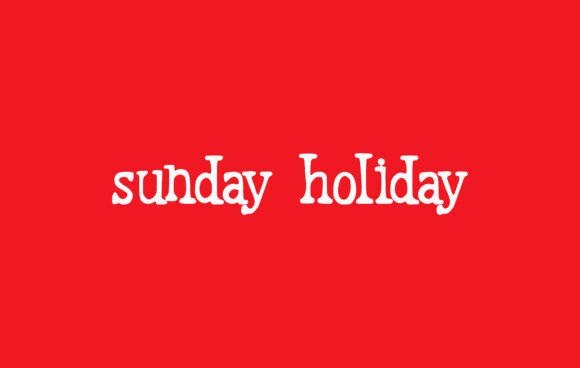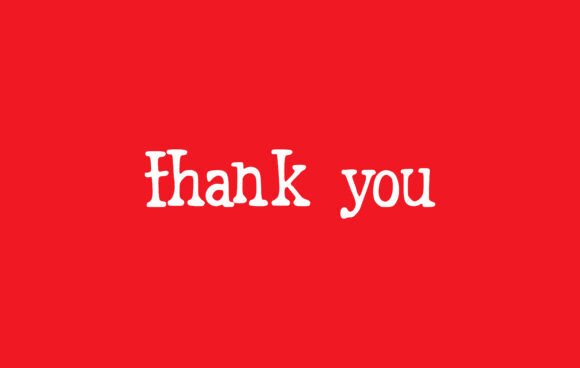
Introduction to Graffflow Font
Have you ever stumbled upon the perfect font that makes your creative project stand out from the crowd? It’s that magical moment when words come alive on the page, and your design takes on a life of its own. For designers, finding the right font can be a game-changer, elevating their work from good to great.
Enter the Graffflow Font, an authentic handwritten font with a romantic touch that’s sure to capture hearts. This expertly designed font is a true favorite among creatives, offering a high-quality solution for any design project. Whether you’re working on a magazine headline, social media campaign, or wedding invitation, Graffflow Font is the perfect design resource to take your ideas to the next level.
Key Features of Graffflow Font
- Unique Hand-Drawn Design: Graffflow Font features a distinctive hand-drawn style, perfect for creative projects that require a personal touch.
- Perfect for Creative Projects: Graffflow Font is ideal for use in creative projects such as posters, flyers, business cards, and other marketing materials.
- Design Resource: Graffflow Font is a valuable addition to any designer’s toolkit, providing a versatile and stylish font that can be used in a variety of design contexts.
Honest Review: Graffflow Font
I recently had the chance to try out the Graffflow Font, and I’m excited to share my thoughts on this design resource. ✨ One of the things that stands out is its high quality – the font is crisp and clean, making it perfect for a wide range of creative projects.
That being said, there are a few limitations to be aware of. ⚠️ For one, the font may not be suitable for all types of designs – it’s a bit on the bold side, so it may not work well for more subtle projects. Additionally, the font’s character set is a bit limited, so you may not have access to as many characters as you would with a more comprehensive font.
Tips for Getting the Most Out of Graffflow Font
Experiment with different font sizes, colors, and styles to create unique designs. Use the font in combination with other design elements to create a visually appealing design. Don’t be afraid to try new things and push the boundaries of what’s possible with the Graffflow Font.
The Graffflow Font is suitable for a wide range of creative projects, including graphic design, branding, and marketing materials. Use the font to create eye-catching logos, brochures, and business cards. The font is also great for creating digital assets, such as social media graphics and website headers.